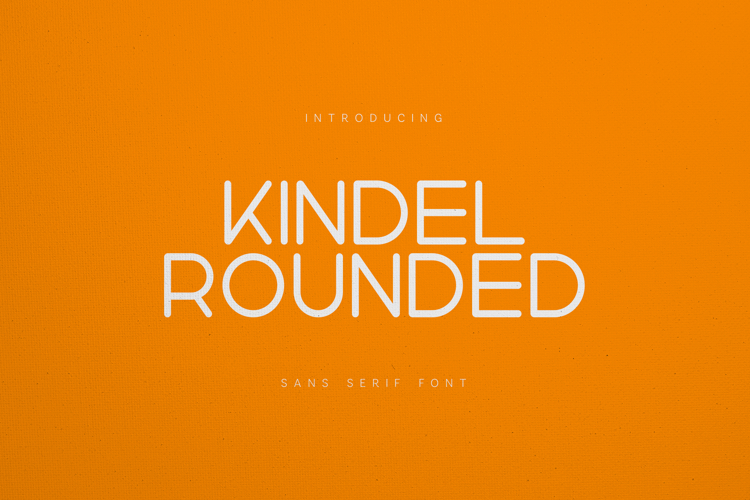
Modern Heritage Minimalist Sans Serif Font
Kindel Rounded is a clean and modern rounded sans serif font designed with smooth curves and balanced proportions to create a friendly, contemporary look. Its soft geometry makes it perfect for branding, logos, headlines, posters, packaging, social media graphics, UI design, web projects, editorial layouts, and modern marketing materials. Kindel Rounded features uppercase and lowercase letters, numerals, punctuation, symbols, and multilingual support. The font is delivered in OTF format, ensuring high compatibility and professional-quality typography for both digital and print projects.